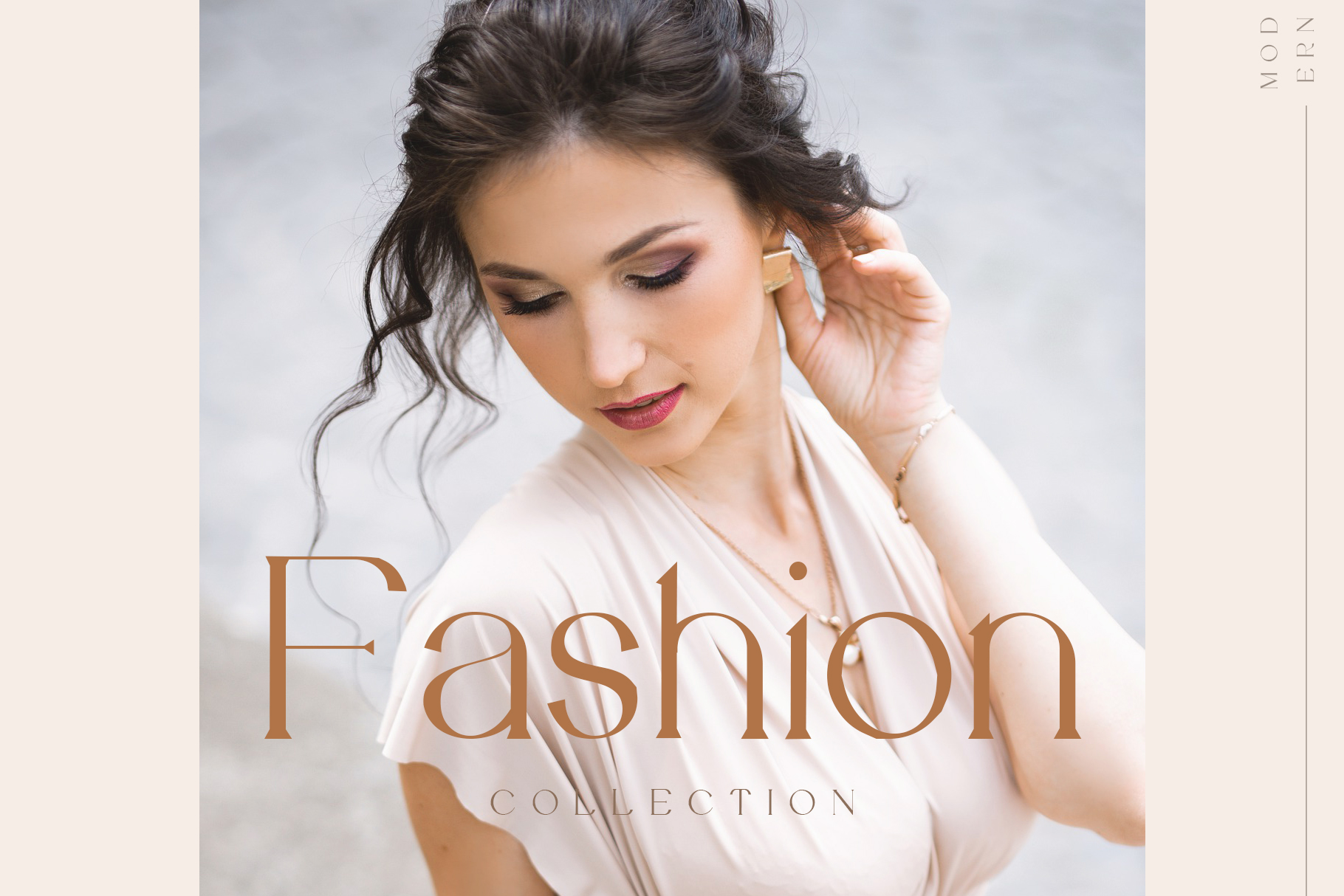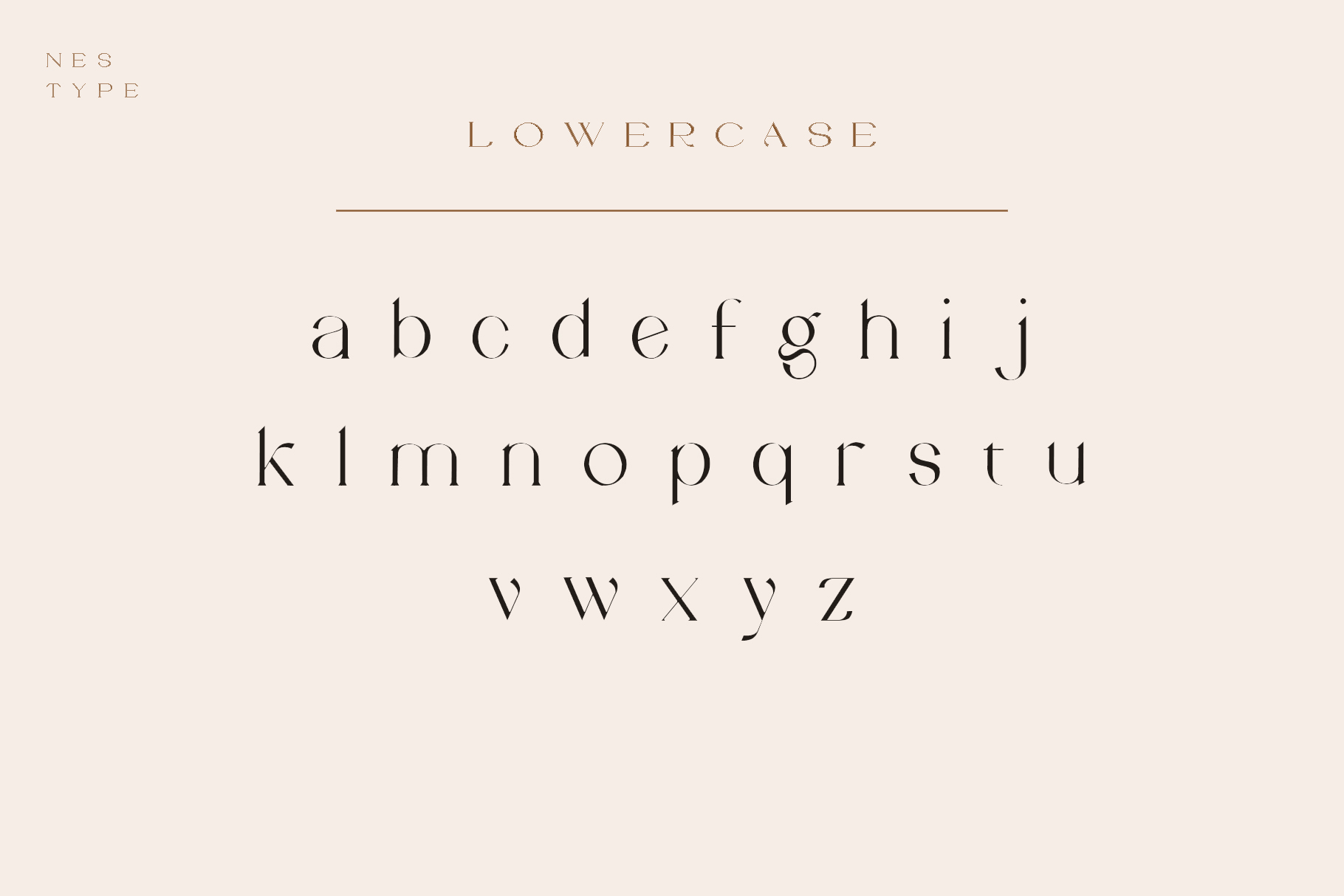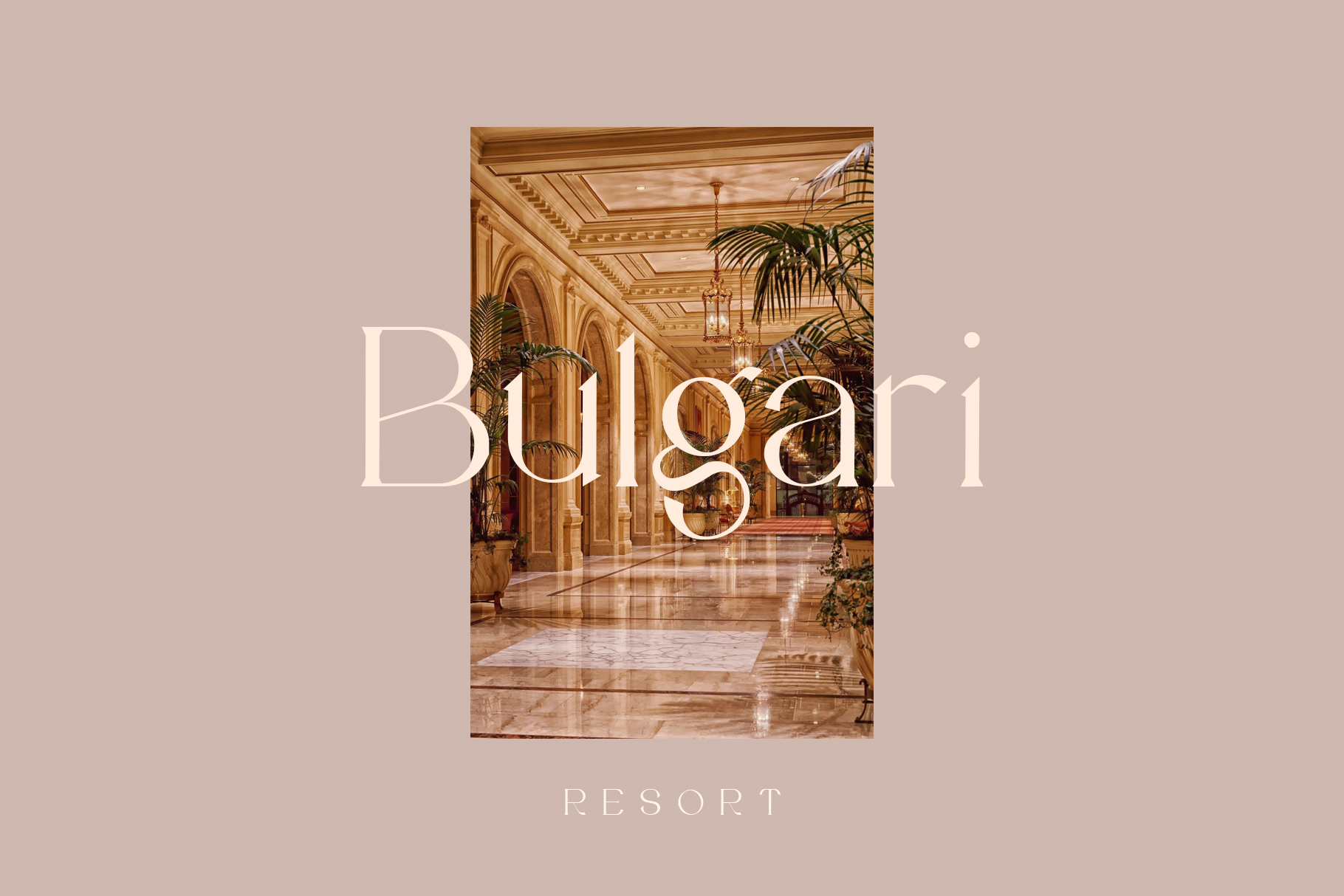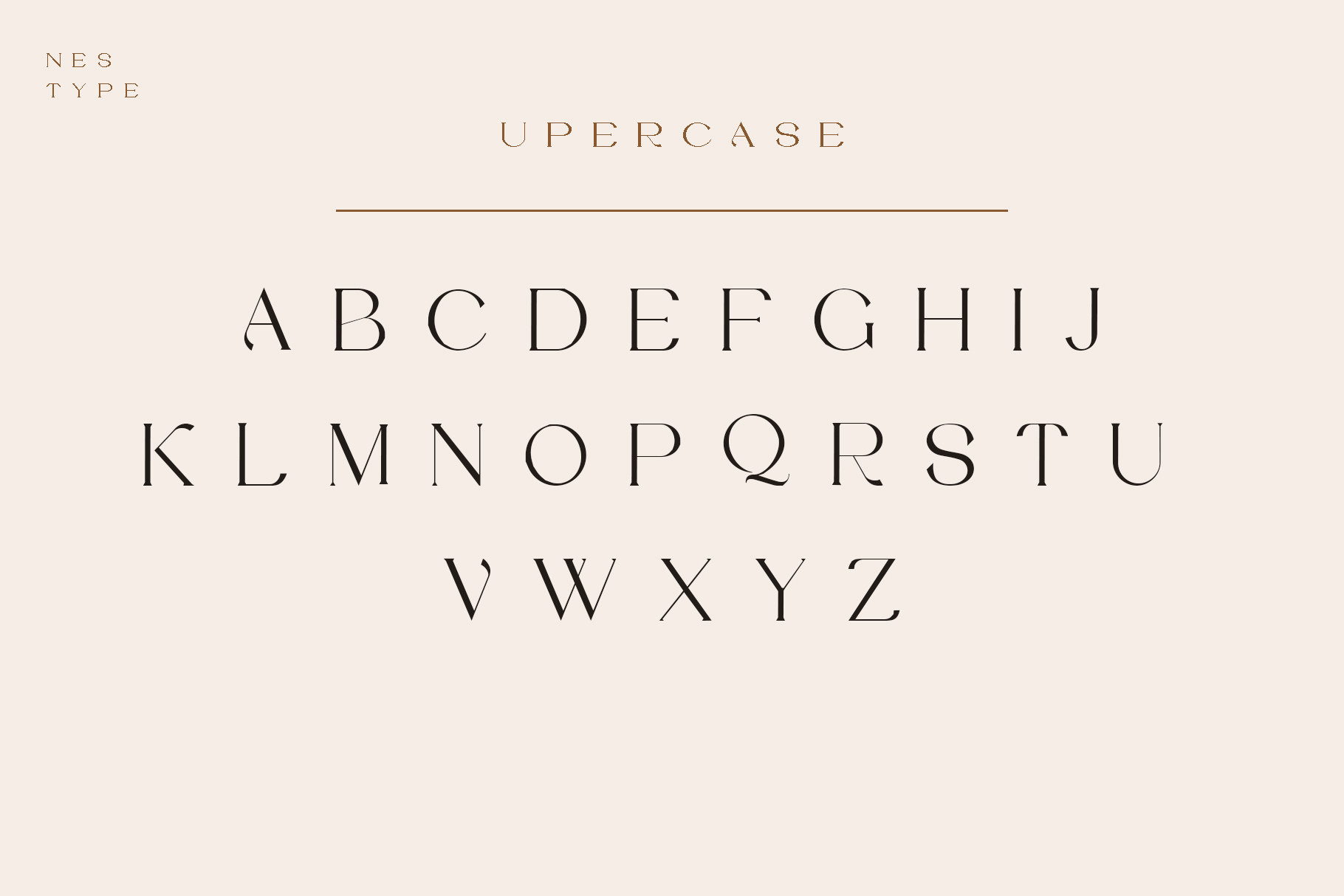
Vilaka Typeface
Vilaka Typeface is a Fancy Modern vintage serif typeface with beautiful ligatures. It is a very versatile font that works well in small and large sizes. Perfect for editorial projects, Logo designs, product packaging, magazine headers, Clothing Branding or just as a stylish text overlay to any background image.